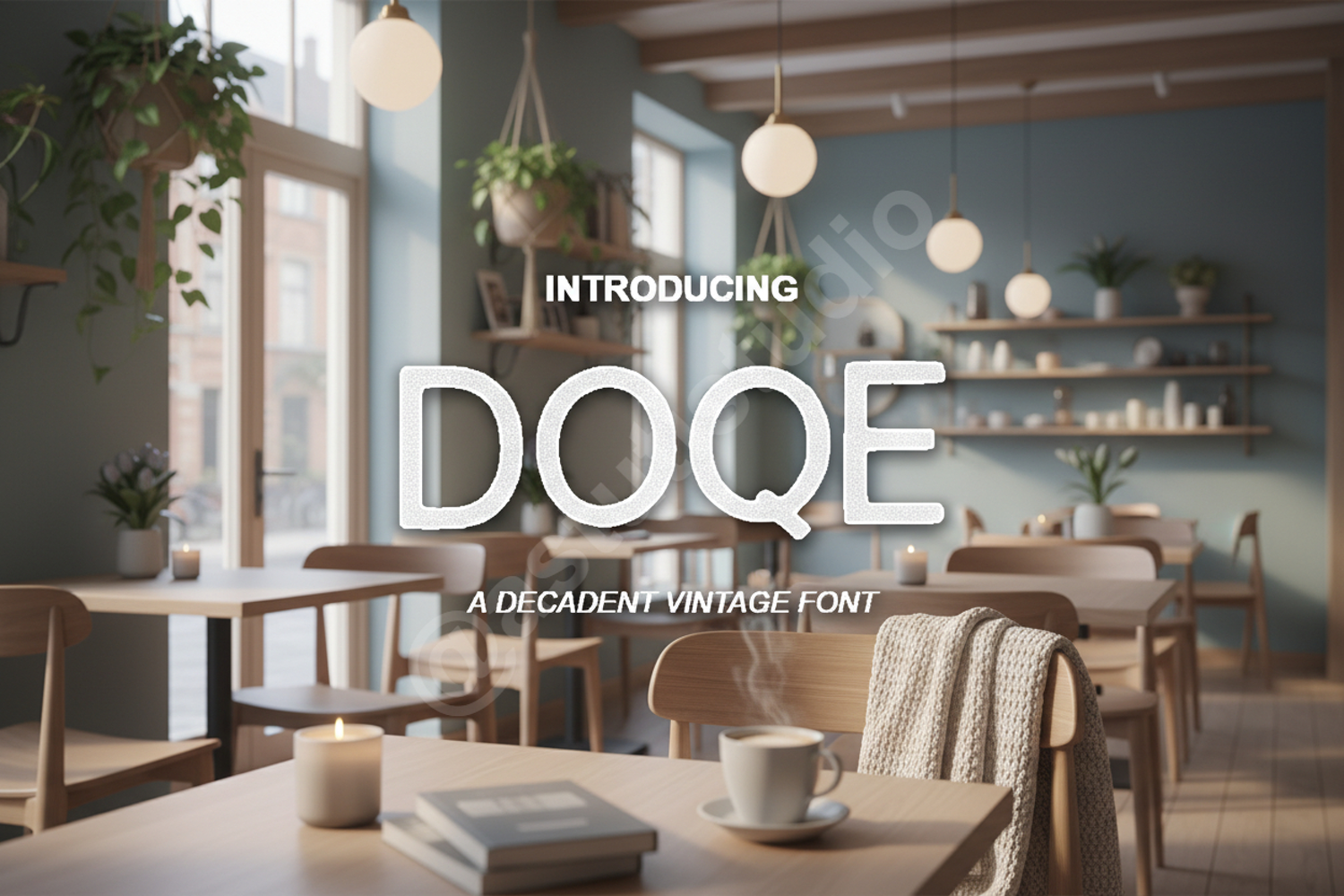
Doqe - Modern Geometric Sans Serif
Doqe
Elevate your creative projects with Doqe, a premium geometric sans serif designed for maximum impact and versatility. This typeface blends clean lines with a contemporary aesthetic, making it an essential addition to any designer's toolkit. Whether you are crafting a minimalist brand or a bold editorial layout, Doqe provides the professional edge your work deserves.
- Full character set including uppercase and lowercase letters
- Numbers and comprehensive punctuation
- Multi-language support for global reach
- Professional Branding and Identity Systems
- High-end Logo Design and Typography
- Social Media Graphics and Marketing Materials
- Website Headers and Modern UI/UX Design
- Editorial Layouts and Magazine Spreads
- Minimalist Packaging and Product Labeling